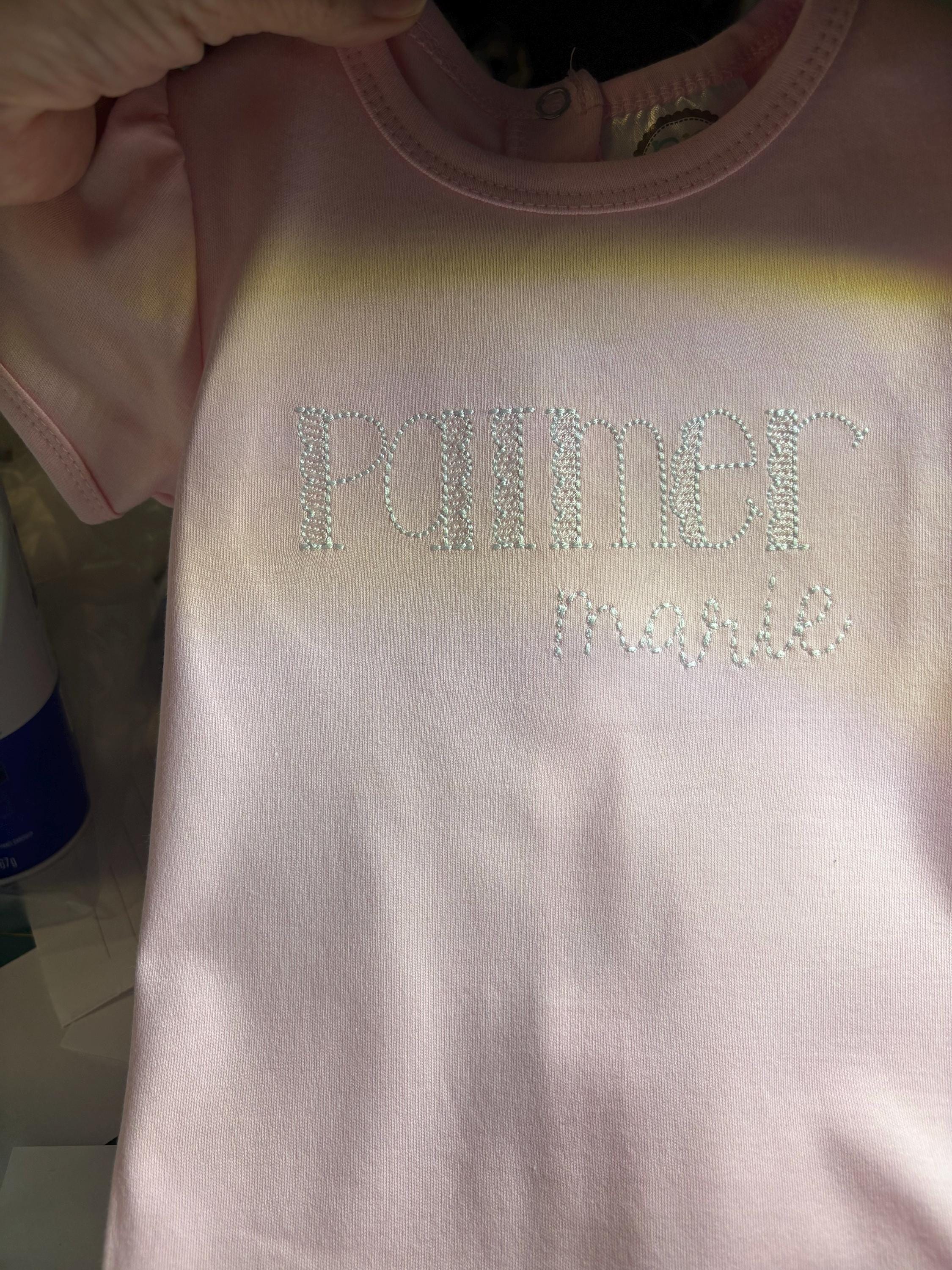
Hand stitch effect FONT machine embroidery designs in assorted mini sizes script alphabet letters, playful kids name seed stitch, BX included
very pretty font, stiched out perfectly.
It was just what I was looking for.